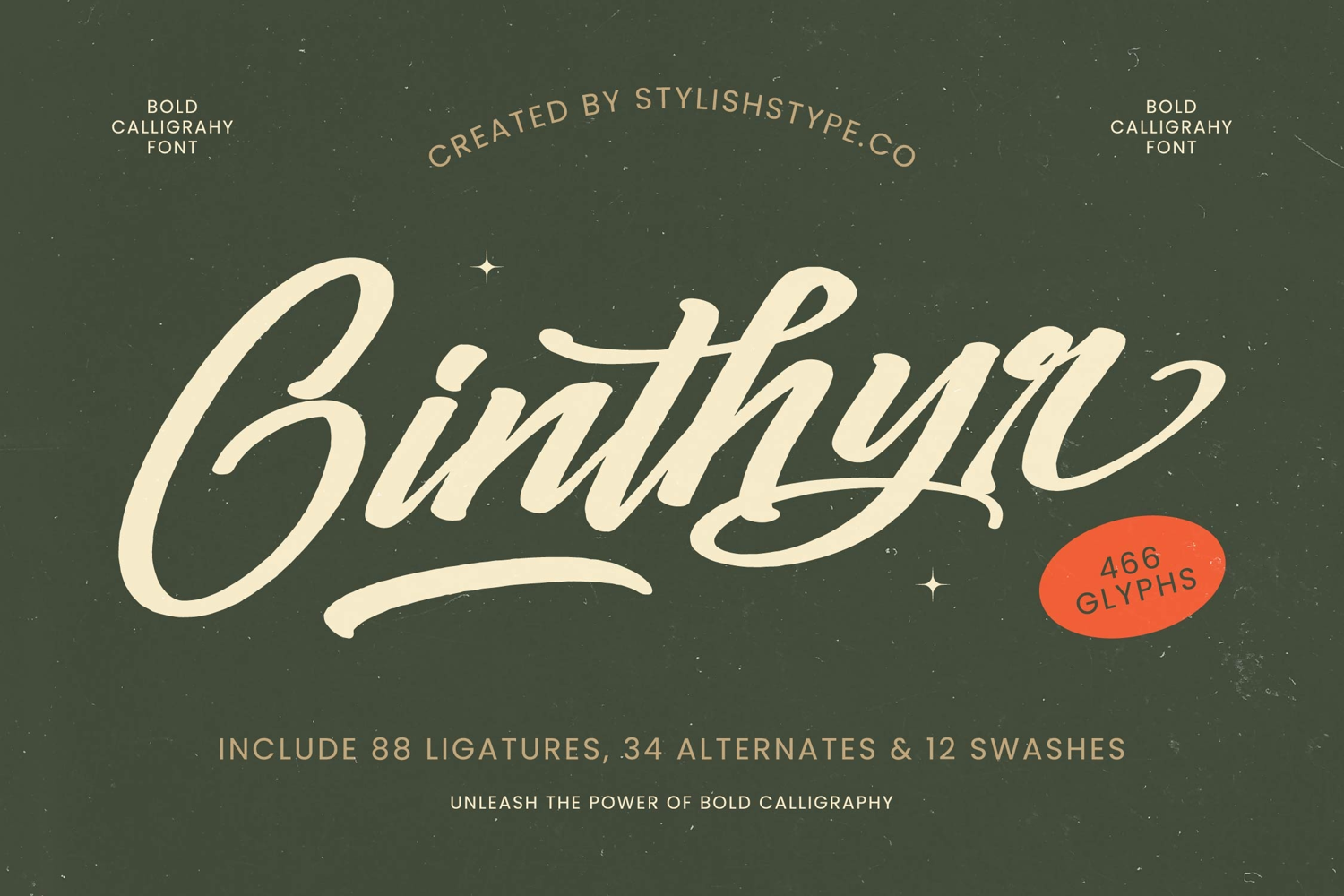
Ginthyr - Bold Calligraphy Font
Ginthyr
Ginthyr Italic
Ginthyr - Bold Calligraphy Font. This dynamic script typeface fuses the natural fluidity of traditional brushwork with a substantial, confident weight. Its high-impact presence ensures instant legibility and a distinct personality, making it a perfect choice for designs that demand attention without sacrificing sophistication. The deliberate, sweeping connections and bold strokes provide a seamless, authentic flow, instantly elevating basic text into a powerful visual statement.